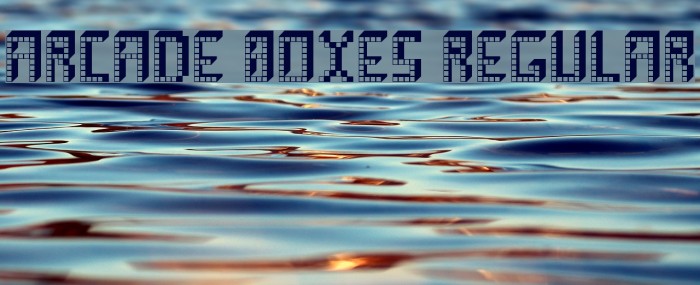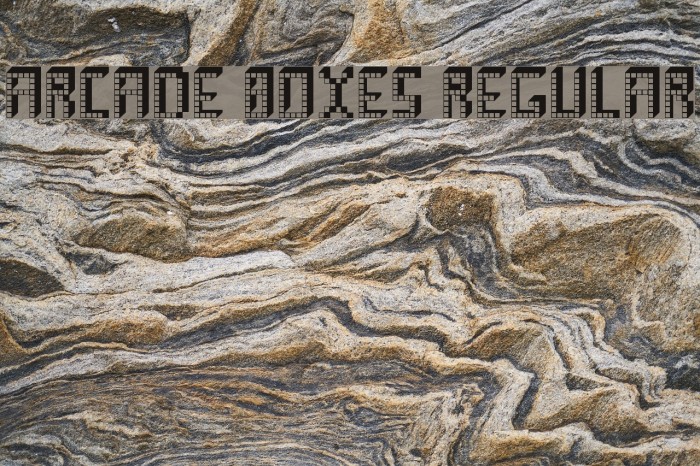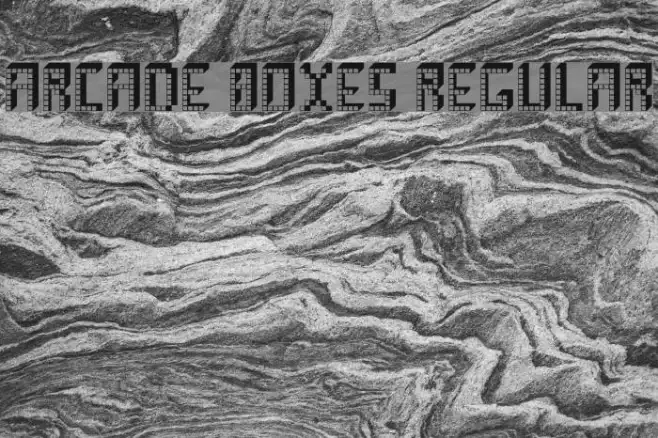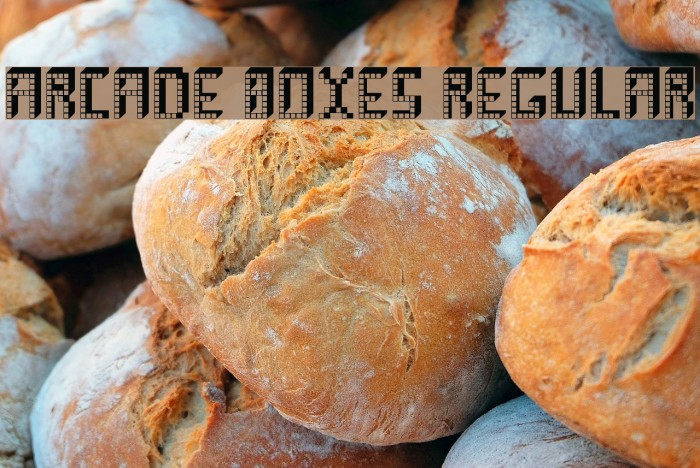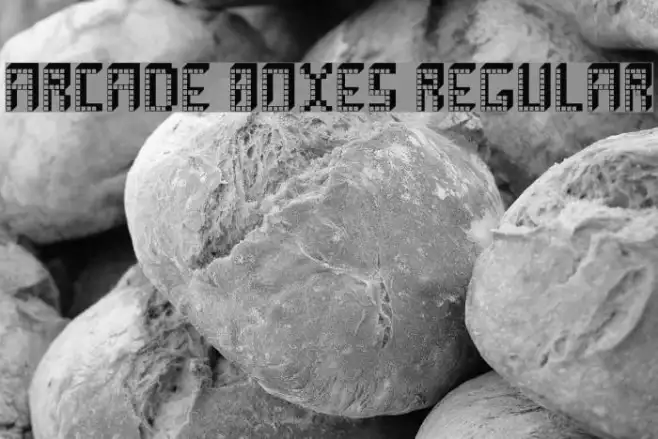
Arcade Boxes Regular Font
Arcade Boxes Regular Description
This font features a distinctive retro, pixelated design reminiscent of classic arcade games. Each character is constructed from a grid of squares, creating a blocky, digital appearance. The uppercase and lowercase letters maintain a consistent style, with sharp angles and uniform line thickness. The numerals and special characters follow the same grid-based structure, ensuring a cohesive look across all glyphs. This font evokes a sense of nostalgia, perfect for projects aiming to capture the essence of early video game aesthetics.
| Overall Style | Vintage |
| Use Case | Logos, Headlines, Posters |
| Proposed Projects | Ideal for video game designs, retro-themed posters, digital art projects, and any creative work seeking a nostalgic arcade feel. |